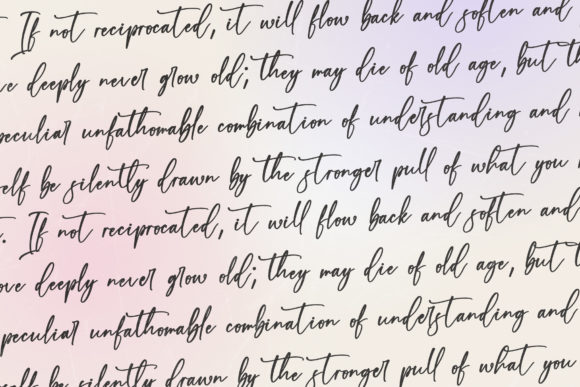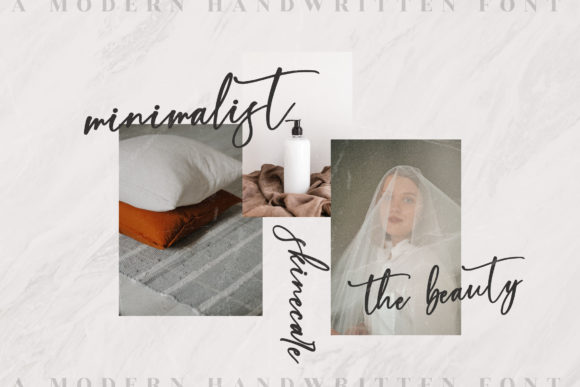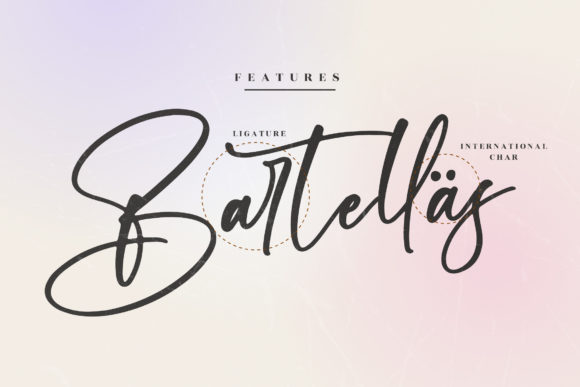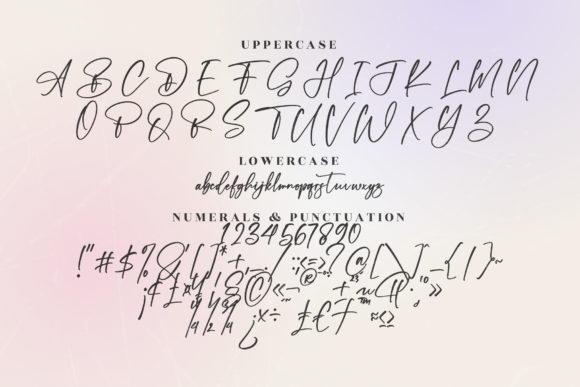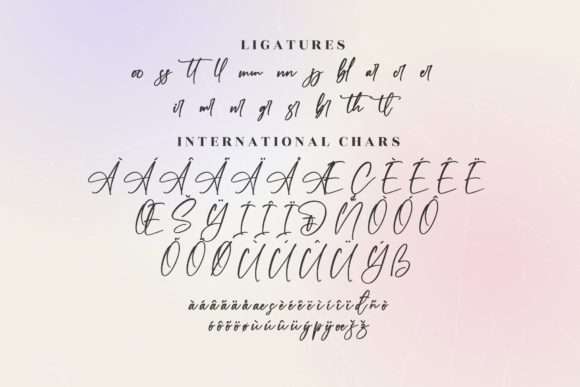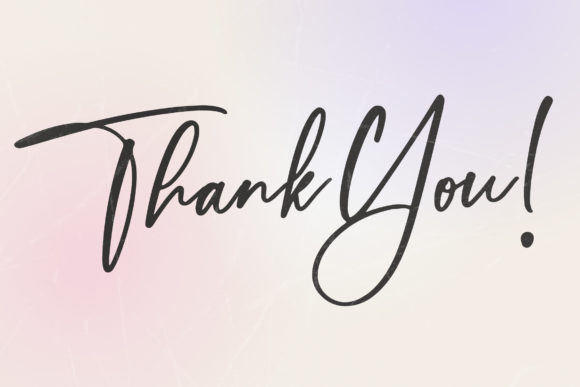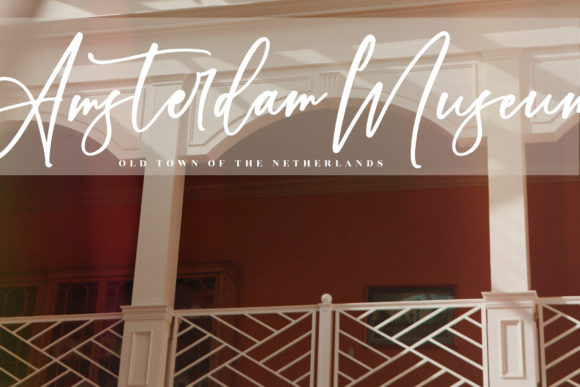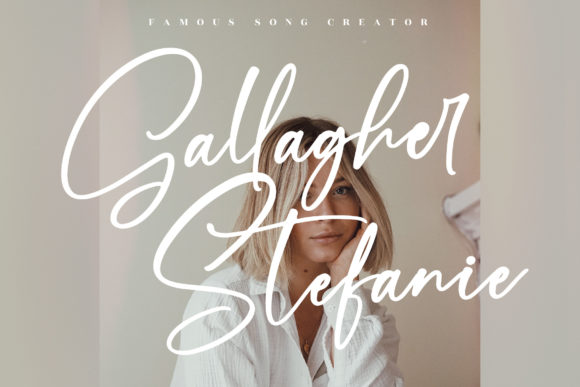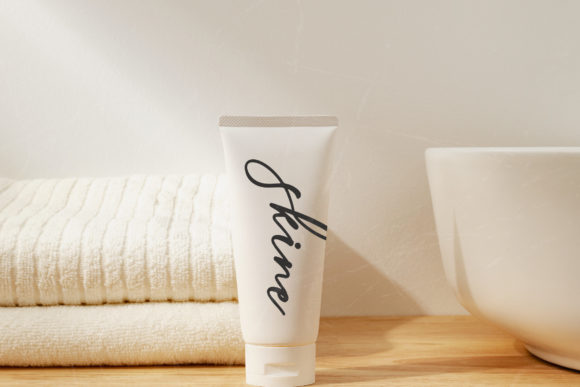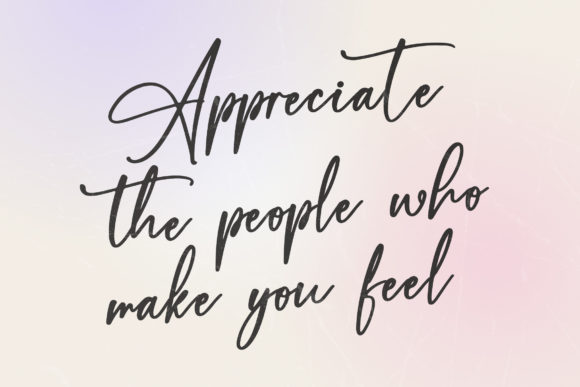
The Adams Font
About The Adams Font
The Adams is a stunning script font that brings elegance and charm to any design project. With its beautifully crafted letterforms and flowing strokes, this font is a perfect choice for a wide range of creative applications.
For logos and branding projects, The Adams can help create a strong and memorable visual identity. Its graceful curves and stylish appearance can instantly capture the essence of your brand, making it stand out in a competitive market. Whether you’re aiming for a modern, sophisticated look or a more whimsical and playful vibe, The Adams can adapt to your brand’s personality and message.
In homeware designs and product packaging, The Adams adds a touch of refinement and uniqueness. Its script style conveys a sense of craftsmanship and authenticity, making your products feel special and inviting. From mugs and labels to product tags and packaging, the font’s versatility allows it to shine across various mediums, enhancing the overall aesthetic of your designs.
Quotes and messages take on a new level of elegance with The Adams. Whether it’s for social media posts, posters, or greeting cards, the font’s intricate details and swashes can add a touch of sophistication and artistic flair. The PUA encoding ensures easy access to all glyphs and swashes, making it effortless to create stunning typographic compositions.
The Adams also excels in adding a personalized touch to various projects. Its versatility extends to invitations, creating an air of anticipation and excitement for weddings, events, or special occasions. Its flowing letters and unique style make it a perfect choice for adding a handwritten feel to digital or print materials.
In summary, The Adams is a versatile and beautiful script font that can elevate a wide range of design projects. Its suitability for logos, branding, homeware designs, product packaging, quotes, and more makes it a valuable asset for designers seeking a touch of elegance and sophistication. With The Adams, you have a tool that can effortlessly enhance the beauty and visual appeal of your projects, leaving a lasting impression on your audience.